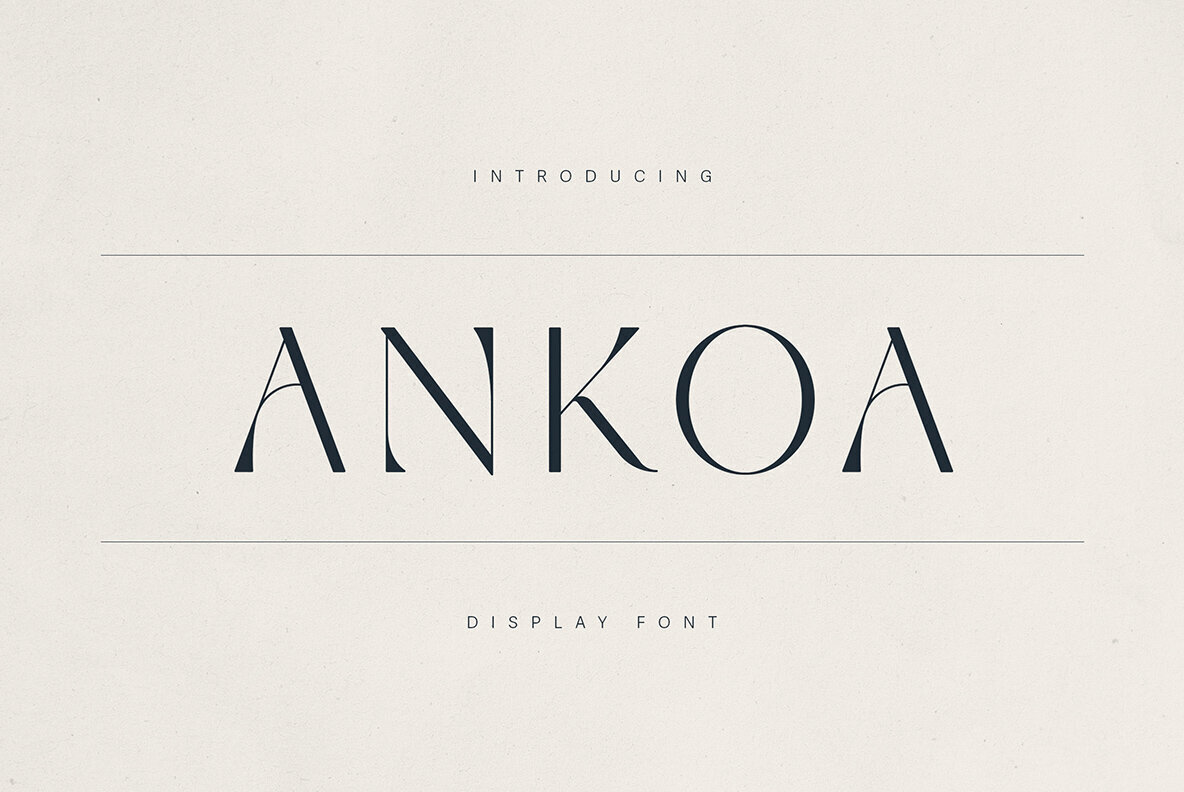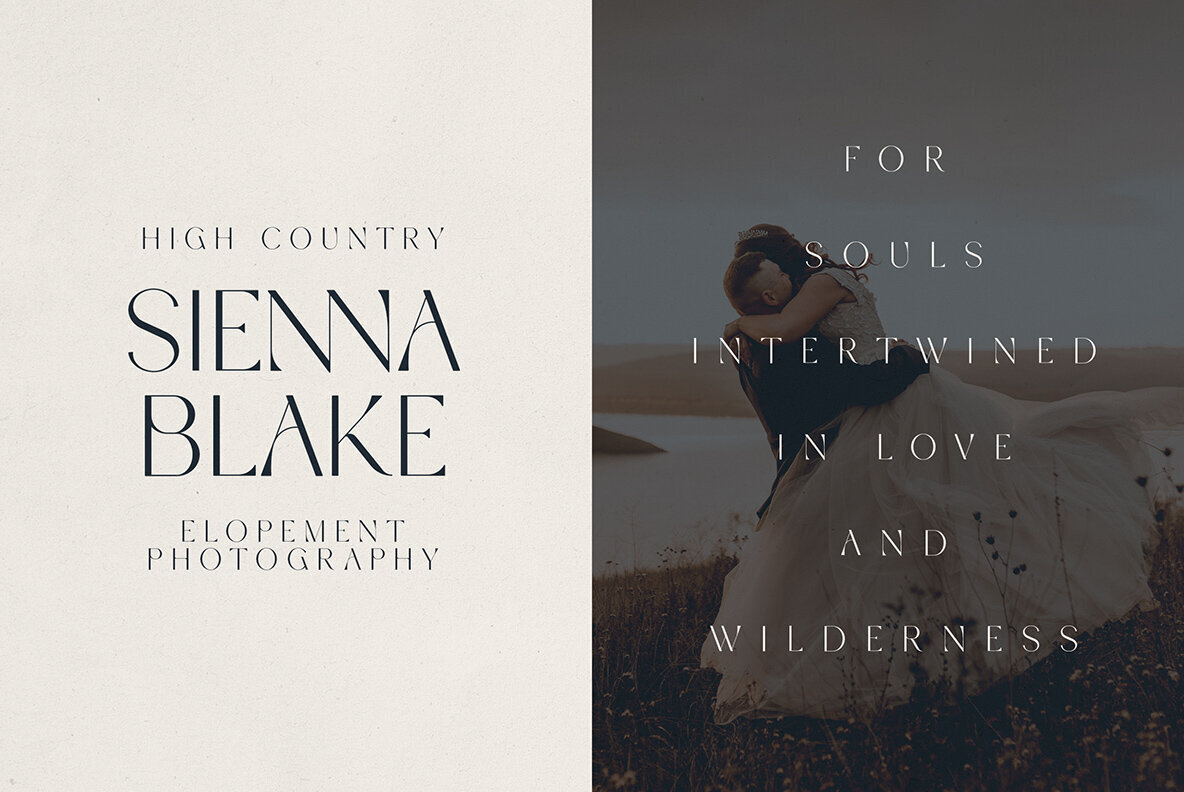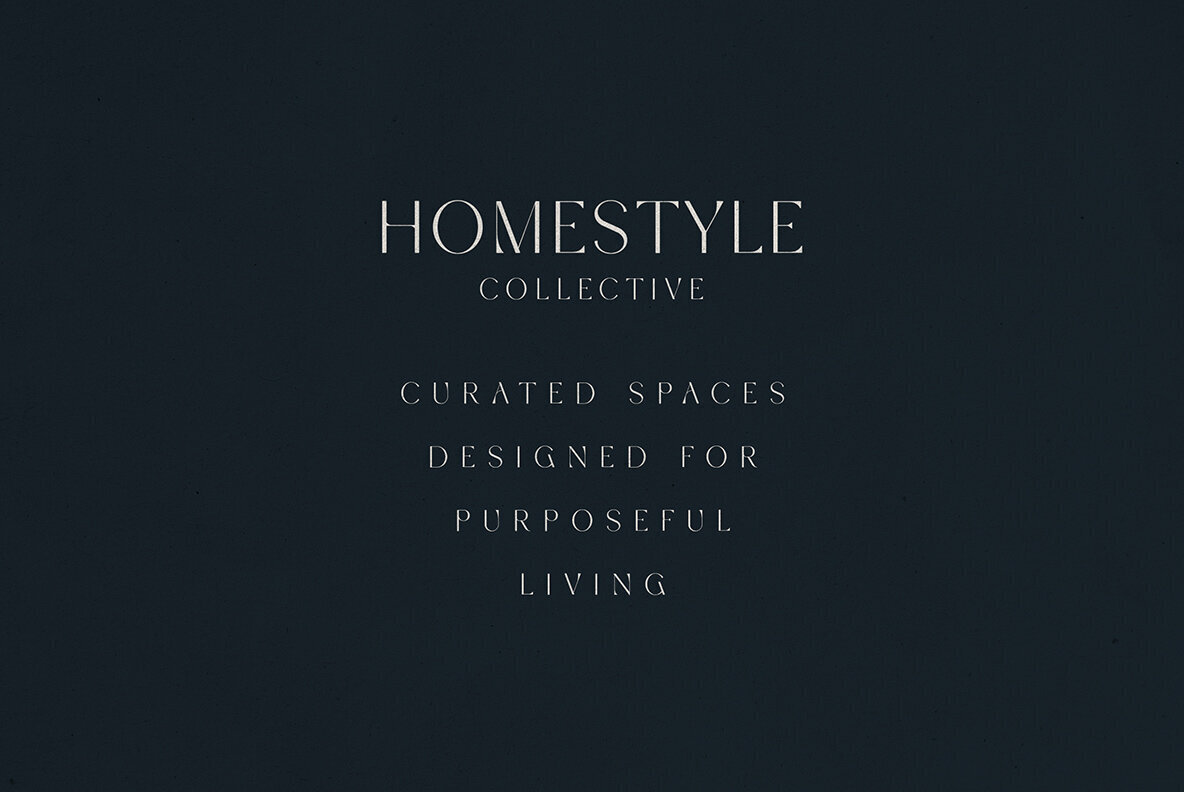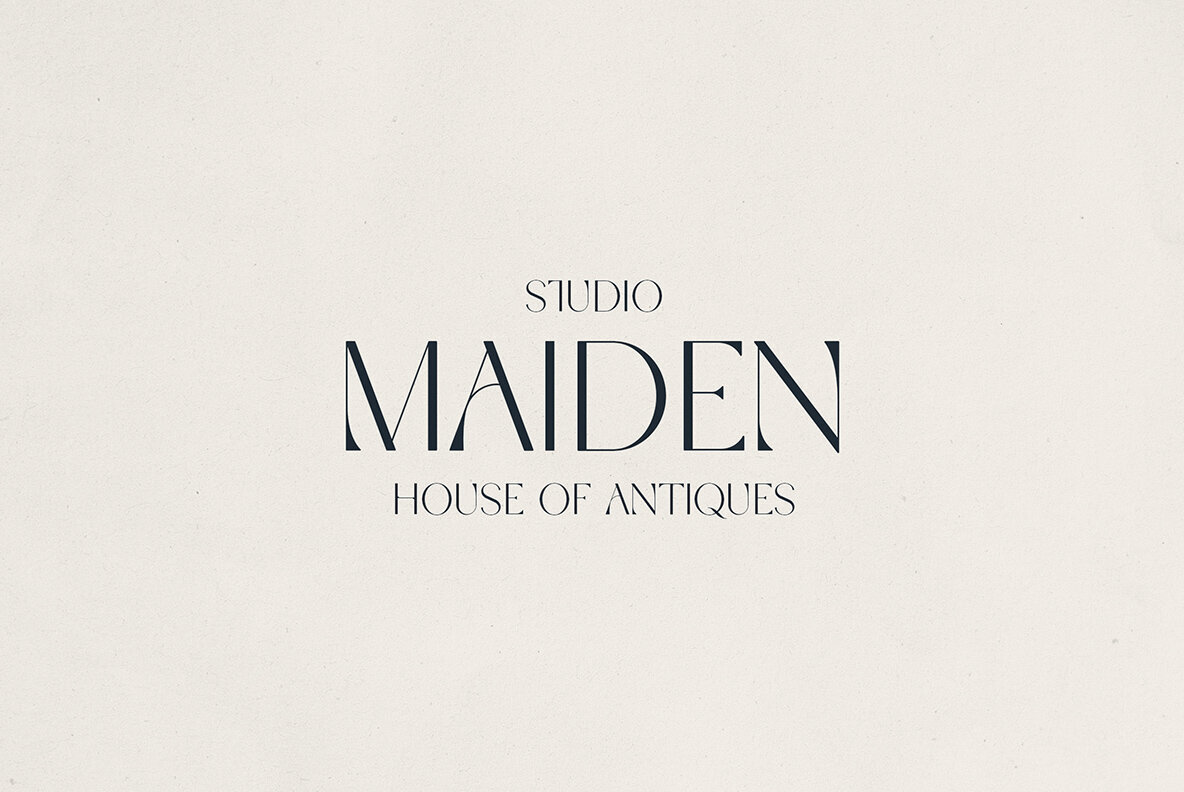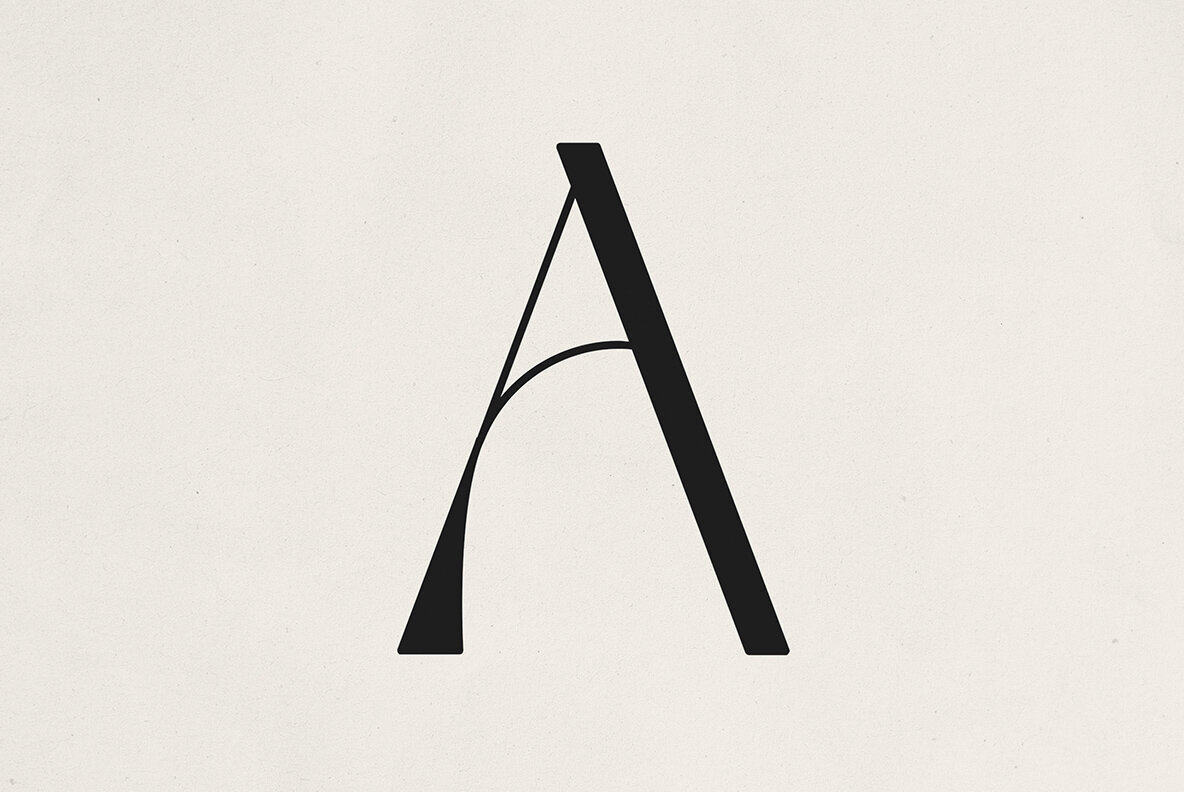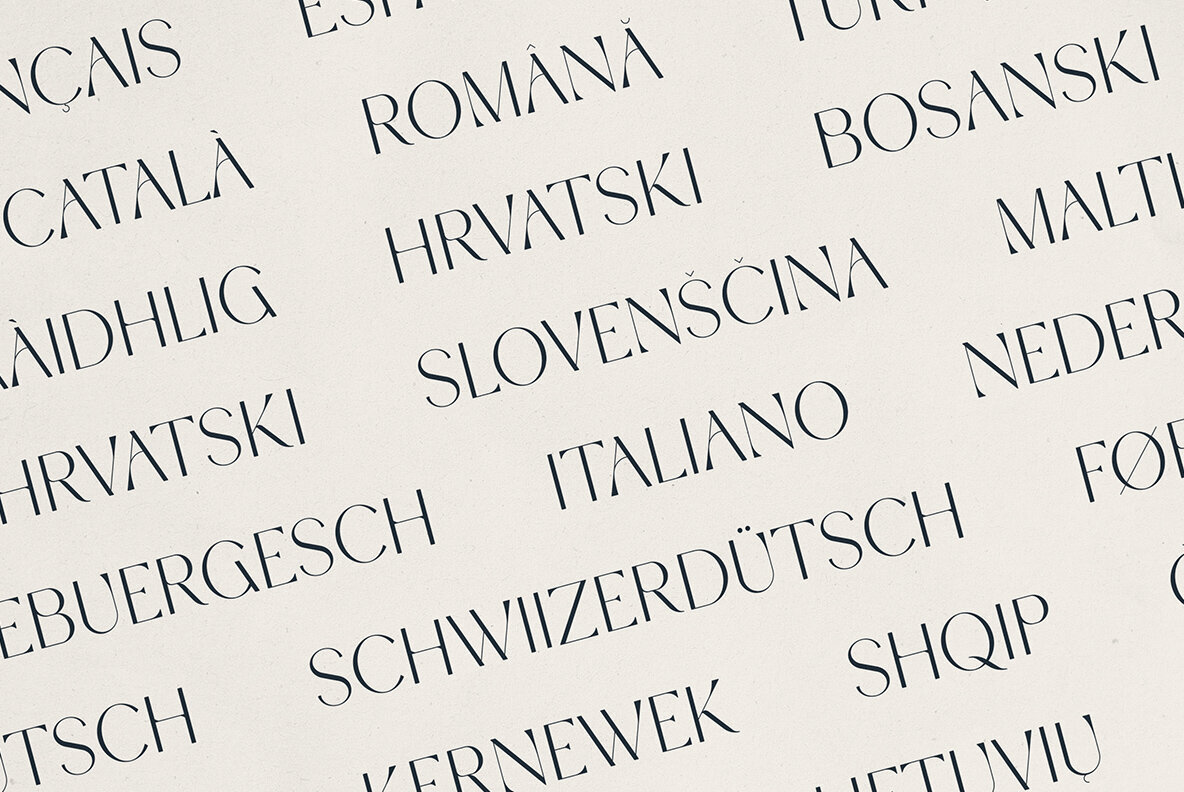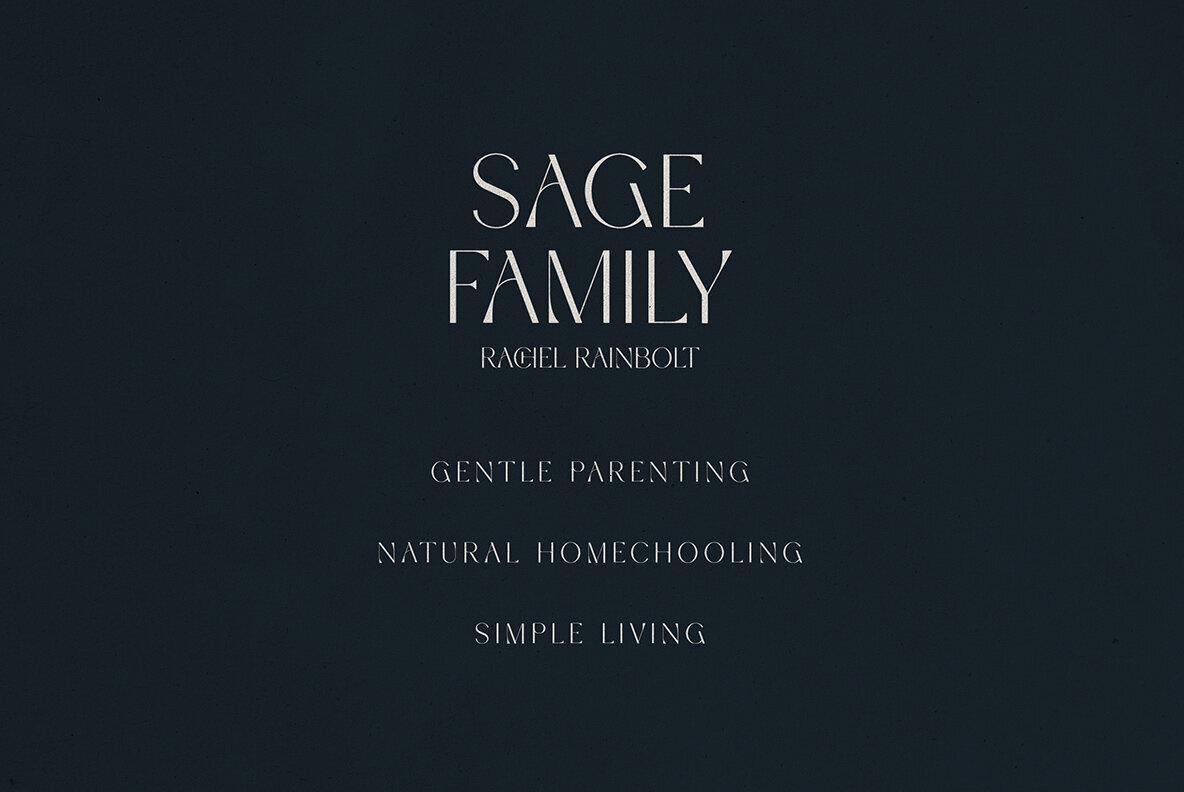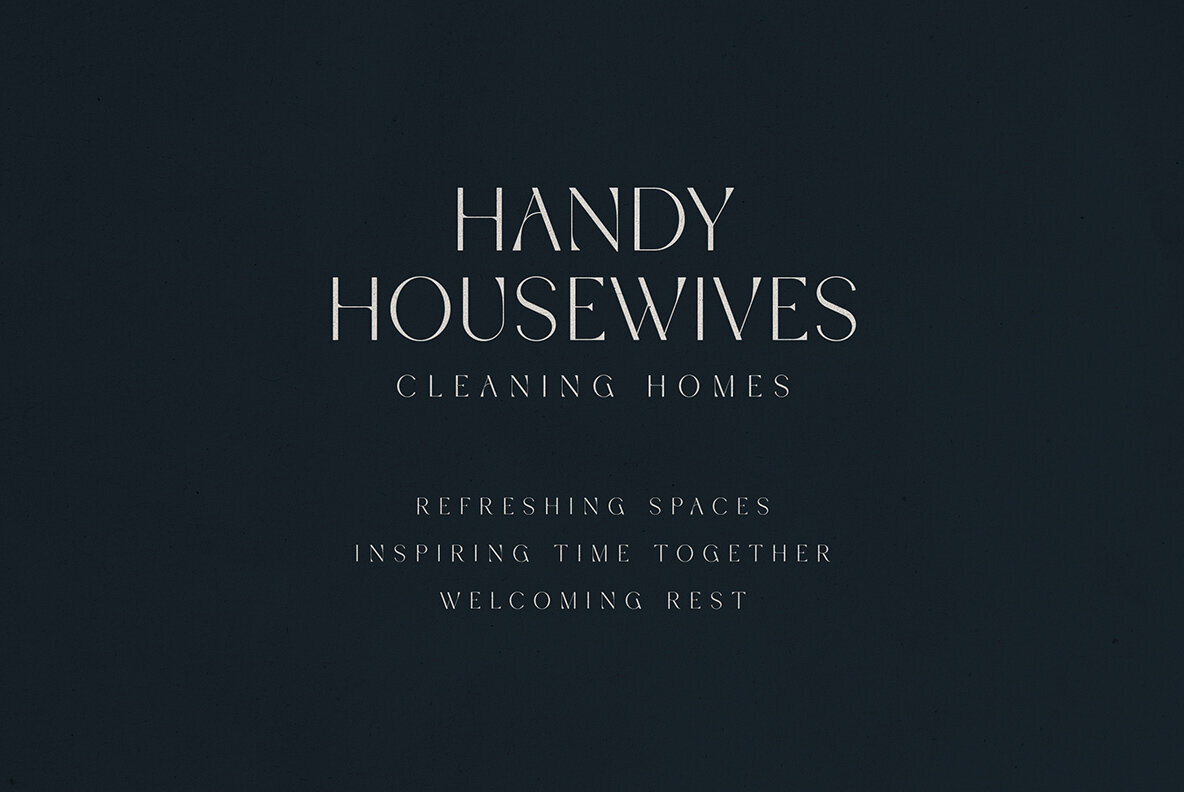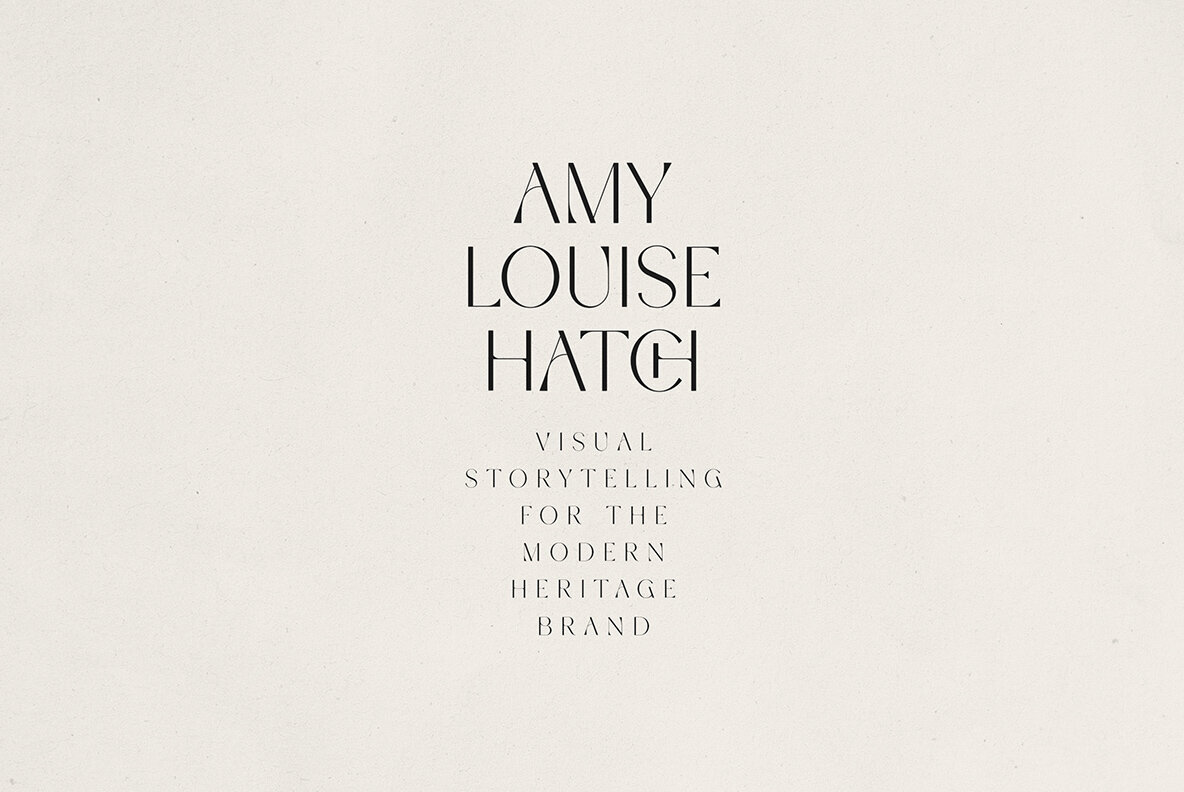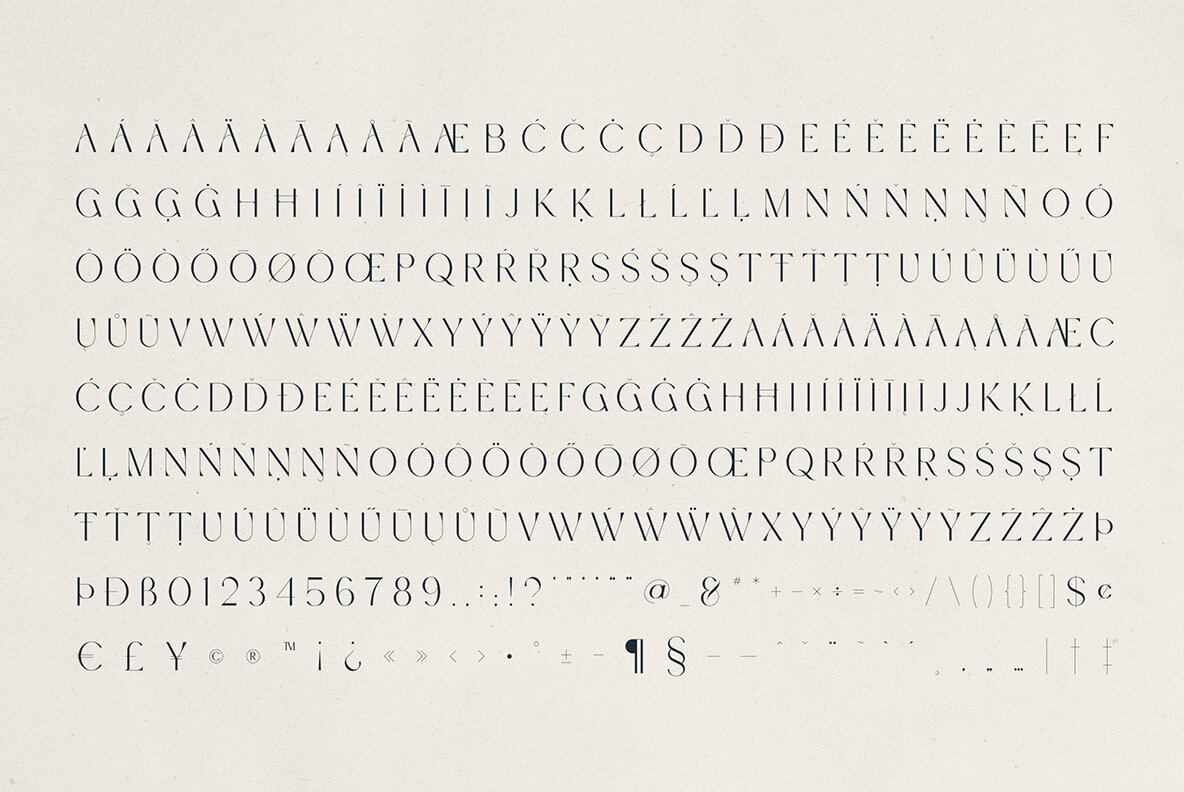
Ankoa Font
Ankoa Regular
Ankoa is a contemporary display serif font that elegantly blends artistic flair with timeless sophistication. Defined by its refined proportions, high-contrast strokes, and unique curved terminals, Ankoa embodies the essence of modern luxury with a hint of vintage romance. Perfect for upscale branding, editorial layouts, and packaging, this font conveys a sense of intentionality and understated beauty. Each letterform is artfully crafted to draw visual intrigue, making it an ideal choice for headlines, logos, wedding collateral, and lifestyle storytelling. Whether you're designing for a soulful photography brand, a poetic home goods label, or a heritage-inspired editorial, Ankoa evokes a look that's both meaningful and memorable.Ankoa - A Refined Minimalist Display Serif